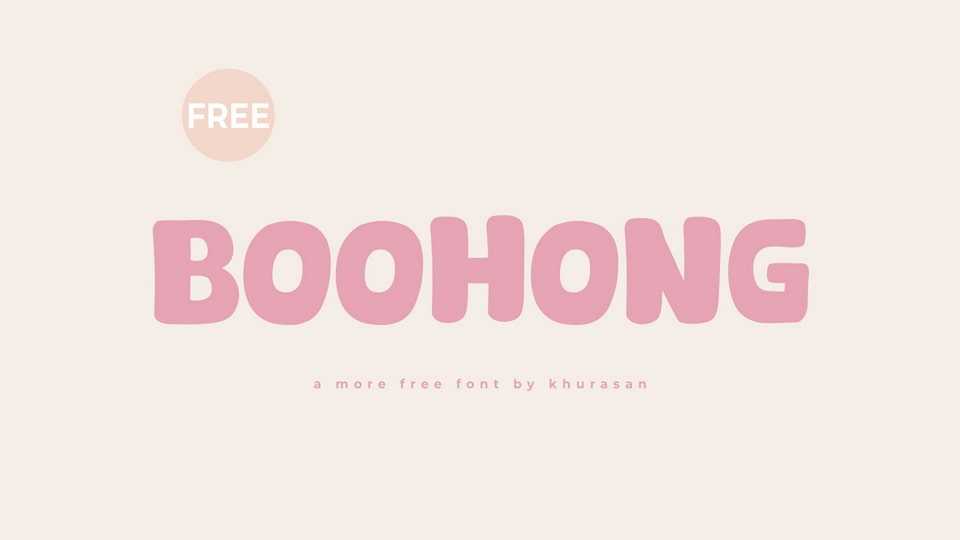
Download Boohong font, a vibrant hand-crafted cartoon typeface designed to infuse your designs with fun and whimsy. Crafted with bold strokes and playful details, Boohong font transforms your text into a lively and comical typographic experience.